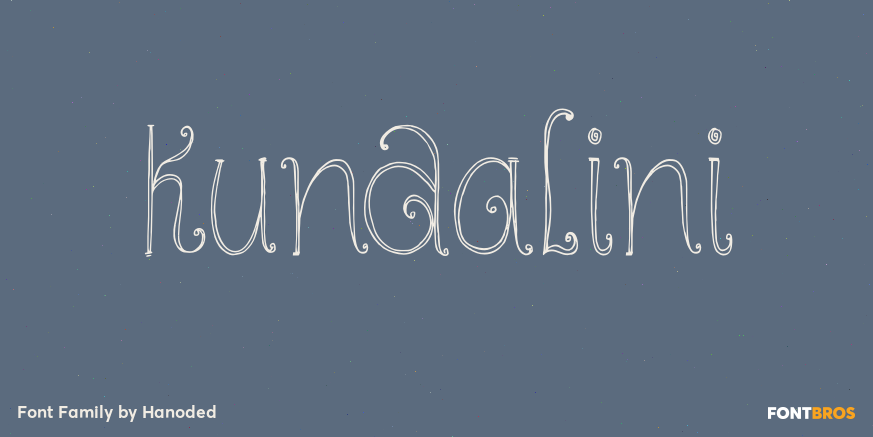
Kundalini
About Kundalini
Kundalini means ?coiled?. In yoga it is used to describe an energy or force which lies at the base of the spine and, when awakened, results in deep meditation or even enlightenment. Aaahhh? Now zoom back to earth: Kundalini font is a great curly typeface…